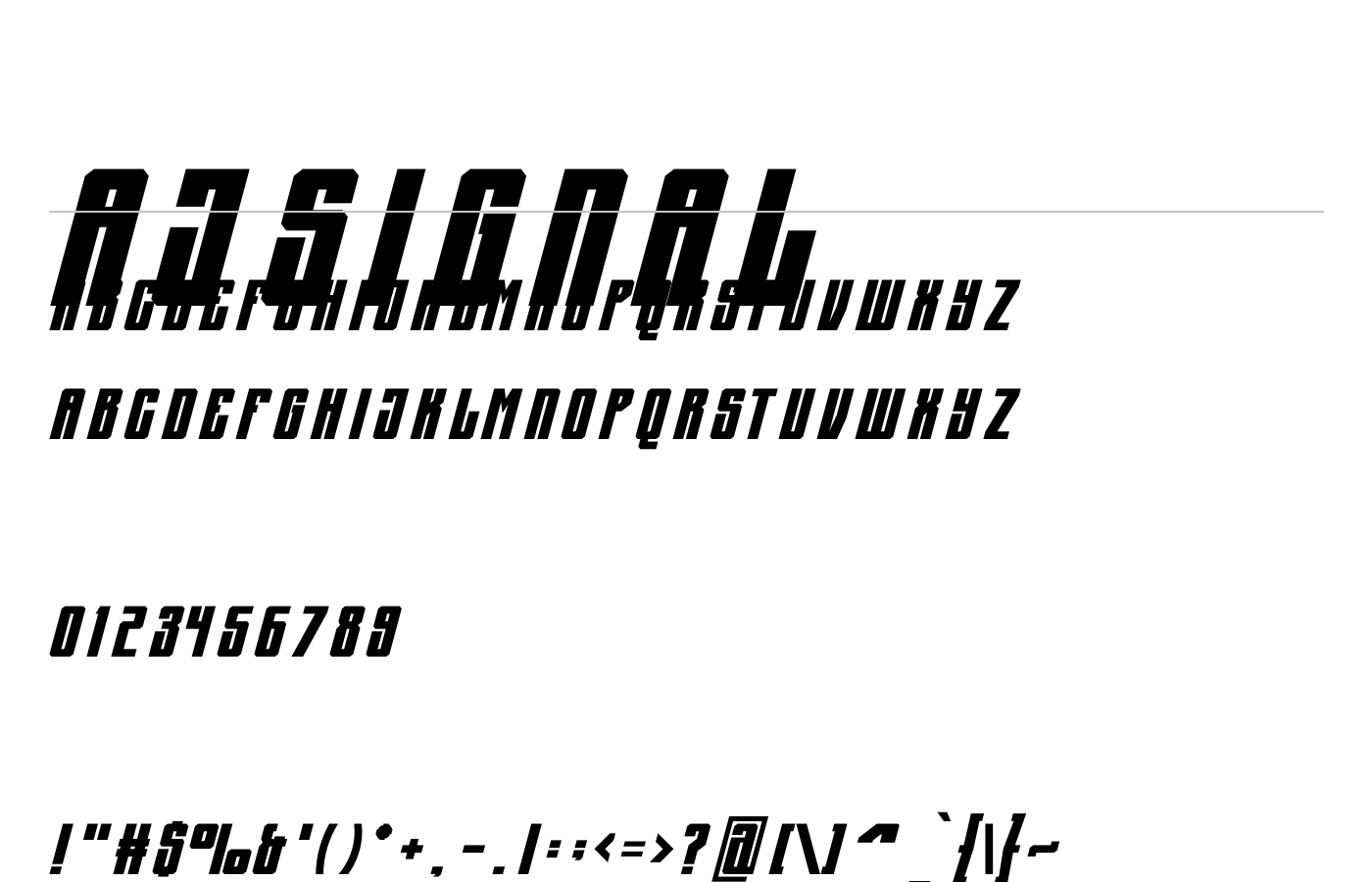
AJ Signal is a bold, condensed sans serif font with a strong, slanted italic style that gives it a dynamic and futuristic feel. Its sharp, geometric letterforms and high contrast between thick and thin strokes make it perfect for eye-catching headlines, sports branding, or tech-inspired designs that need a sense of speed and energy. This font works best where impact and modernity are key, such as logos, posters, and digital media.
AJ Signal Font